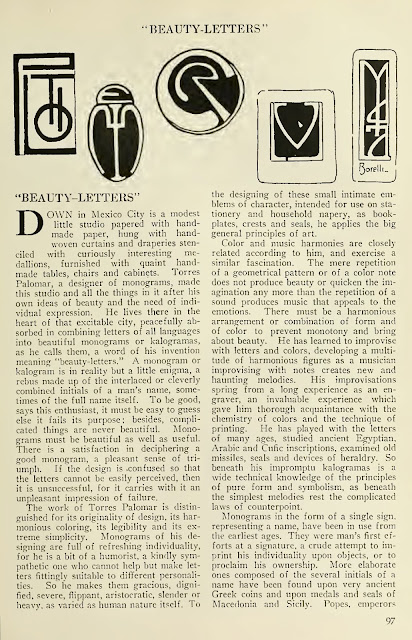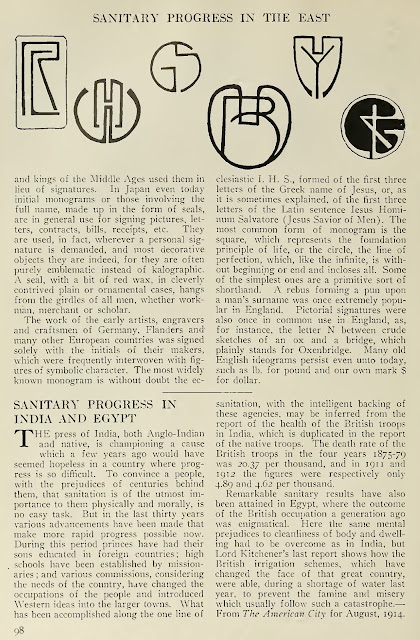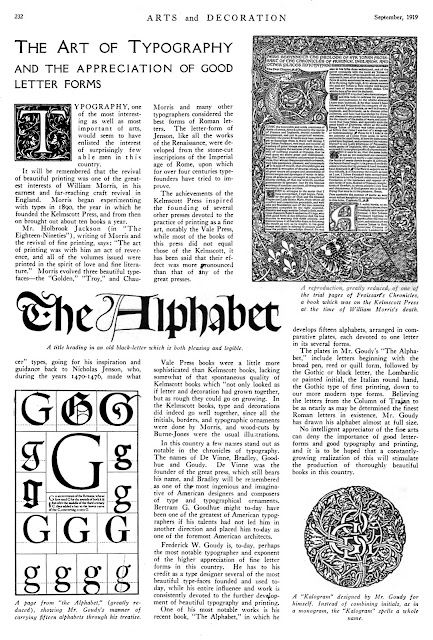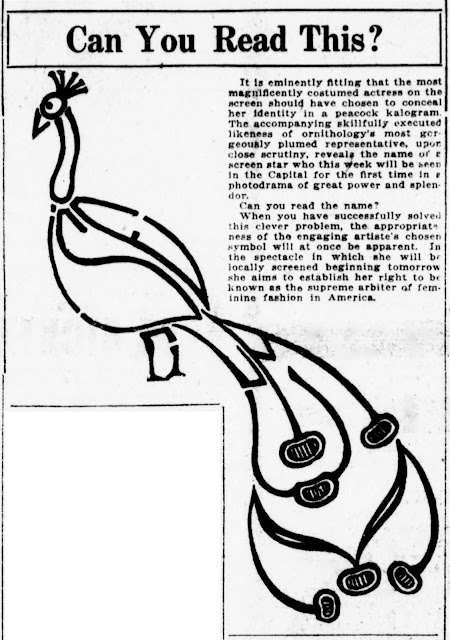
Mexican artist Torres Palomar is the person behind the creation of the kalogramas, which he said “is the psychological portrait of an individual expressed in color with the letters of his name.” As of this writing, the earliest mention of him and his kalogramas was in The Craftsman, October 1914:
“Beauty-LettersDown in Mexico City is a modest studio papered with hand-made paper, hung with hand-woven curtains and draperies stenciled with curiously interesting medallions, furnished with quaint hand-made tables, chairs and cabinets. Torres Palomar, a designer of monograms, made this studio and all the things in it after his own ideas of beauty and the need of individual expression. He lives there in the heart of that excitable city, peacefully absorbed in combining letters of all languages into beautiful monograms or kalogramas, as he calls them, a word of his invention meaning “beauty-letters.” A monogram or kalogram is in reality but a little enigma, a rebus made up of the interlaced or cleverly combined initials of a man's name, sometimes of the full name itself. To be good, says this enthusiast, it must be easy to guess else it fails its purpose; besides, complicated things are never beautiful. Monograms must be beautiful as well as useful. There is a satisfaction in deciphering a good monogram, a pleasant sense of triumph. If the design is confused so that the letters cannot be easily perceived, then it is unsuccessful, for it carries with it an unpleasant impression of failure.
The work of Torres Palomar is distinguished for its originality of design, its harmonious coloring, its legibility and its extreme simplicity. Monograms of his designing are full of refreshing individuality, for he is a bit of a humorist, a kindly sympathetic one who cannot help but make letters fittingly suitable to different personalities. So he makes them gracious, dignified, severe, flippant, aristocratic, slender or heavy, as varied as human nature itself. To the designing of these small intimate emblems of character, intended for use on stationery and household napery, as bookplates, crests and seals, he applies the big general principles of art.
Color and music harmonies are closely related according to him, and exercise a similar fascination. The mere repetition of a geometrical pattern or of a color note does not produce beauty or quicken the imagination any more than the repetition of a sound produces music that appeals to the emotions. There must be a harmonious arrangement or combination of form and of color to prevent monotony and bring about beauty. He has learned to improvise with letters and colors, developing a multitude of harmonious figures as a musician improvising with notes creates new and haunting melodies. His improvisations spring from a long experience as an engraver, an invaluable experience which gave him thorough acquaintance with the chemistry of colors and the technique of printing. He has played with the letters of many ages, studied ancient Egyptian, Arabic and Cufic inscriptions, examined old missiles, seals and devices of heraldry. So beneath his impromptu kalogramas is a wide technical knowledge of the principles of pure form and symbolism, as beneath the simplest melodies rest the complicated laws of counterpoint.
Monograms in the form of a single sign, representing a name, have been in use from the earliest ages. They were man’s first efforts at a signature, a crude attempt to imprint his individuality upon objects, or to proclaim his ownership. More elaborate ones composed of the several initials of a name have been found upon very ancient Greek coins and upon medals and seals of Macedonia and Sicily. Popes, emperors and kings of the Middle Ages used them in lieu of signatures. In Japan even today initial monograms or those involving the full name, made up in the form of seals, are in general use for signing pictures, letters, contracts, bills, receipts, etc. They are used, in fact, wherever a personal signature is demanded, and most decorative objects they are indeed, for they are often purely emblematic instead of kalographic. A seal, with a bit of red wax, in cleverly contrived plain or ornamental cases, hangs from the girdles of all men, whether workman, merchant or scholar.
The work of the early artists, engravers and craftsmen of Germany. Flanders and many other European countries was signed solely with the initials of their makers, which were frequently interwoven with figures of symbolic character. The most widely known monogram is without doubt the ecclesiastic I. H. S., formed of the first three letters of the Greek name of Jesus, or, as it is sometimes explained, of the first three letters of the Latin sentence Jesus Hominum Salvatore (Jesus Savior of Men). The most common form of monogram is the square, which represents the foundation principle of life, or the circle, the line of perfection, which, like the infinite, is without beginning or end and incloses all. Some of the simplest ones are a primitive sort of shorthand. A rebus forming a pun upon a man’s surname was once extremely popular in England. Pictorial signatures were also once in common use in England, as, for instance, the letter N between crude sketches of an ox and a bridge, which plainly stands for Oxenbridge. Many old English ideograms persist even unto today, such as lb. for pound and our own mark $ for dollar.
Palomar moved to New York City around 1914. An exhibition of Palomar’s work, including some kalogramas, was at the Little Galleries of the Photo-Secession, 291 Fifth Avenue, New York City, from December 9th to January 9th. The show was mentioned in The Vassar Miscellany, December 17, 1914; American Art News, December 12, 1914, page two, column two; and the New York Times, December 20, 1914, column three.
Palomar wrote about his kalogramas in the article, “The Revival of the Cryptic Monogram”, for the March 1915 issue of Harper’s Bazar. Some ofhis subjects were Gaby Deslys, Pavlova, Réjane, Mrs. Ogden L. Mills, Paul Poiret, Tzet Kranil, and Anatole France.
The making of beautiful letters is an art in itself. I have spent twenty years in studying the making of Kalogramas and there is still so much to learn. Beautiful writing has been numbered among the lost arts; in reviving the cryptic monogram and enlarging its scope, I have been able to show that the simplest letter may be truly a work of art. The combinations shown on this page are the result of these years of study. Japanese and Greek art, as well as Egyptian and French, have inspired me. My object is not only to make the letter combinations as beautiful as lies in my power, but to read in them a meaning. In each of the perfected groupings, therefore, some characteristic or achievement of the person is used as an inspiration. With Réjane, her genius as a tragédienne, inspired me. And I try to get rhythm and melody into each combination. One letter is always the key-note, and, as in music, a certain motif is repeated throughout the whole combination. Some names are more rhythmic, some letters more melodious than others. R is the most melodious letter of the alphabet. I love to draw it. M is also an inspiring one to develop.
With this development of Kalogramas, their use has materially widened. Practically everything that the lady of fashion uses may have one of these so-called monograms imprinted upon it. I am told that the mondaine in this country no longer has her stationery emblazoned with her interwoven initials. This is not so in Paris and London, where such name-plates as are shown above are very fashionable. But their use is by no limited to milady’s stationery. In diminutive form, they may be embroidered on lingerie and handkerchiefs; in larger form, on bed and table linen. They are very beautiful when woven in colours into blankets or stenciled on the leather belongings that men in professions always have. Where I endeavor to suggest some very feminine quality in the Kalogramas for my women patrons, for men, I depict courage, bravery, strength. Where possible, I suggest a sword, for the sword is the soul of man. A man’s name, developed in the way that the name of Poiret is developed, would make an interesting book-plate. Engraved on his crystal ware and on silver, it would add personality to each article. Just before the war, the French mondaines were having such monograms placed on their dinner service and tea sets.
There is much that is fascinating and even instructive in the development of these name-plates. I first study the character and appearance of my clients and then draw roughly a “tapestry” depicting the impressions I have received. This forms the groundwork for the design which is finally created.
An article in the New York Herald, April 4, 1915, introduced the kalograma to a new audience.
Now the “Kalograma”The origin of the “kalogramas” may be found in Chinese and Japanese antiquity among the seals used by the nobility and famous artists. But between this far distant chirographic art and the up to date kalogramas of Torres Palomar—the artist who has made a specialty of designing them and who has lived most of his life in the Orient—there is the same grade of distance that exists between the customs of these ancient people and our modern life of refinement and extreme civilization.
Related to Palomar’s kalogramas are the calligrammes by Guillaume Apollinaire, whose book, Calligrammes: Poèmes de la paix et de la guerre 1913–1916, can be viewed, with English translation, here. Apollinaire’s calligrammes are examined in Graphic Design: A New History (2012).
The kalogram’s distant relatives may be the inversions by Scott Kim and the ambigrams by John Langdon and others.
What does a 21st century kalogram look like?